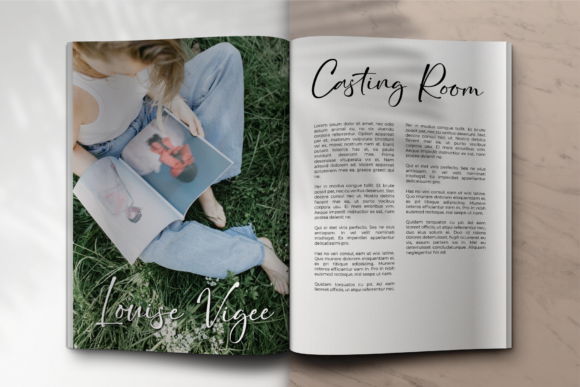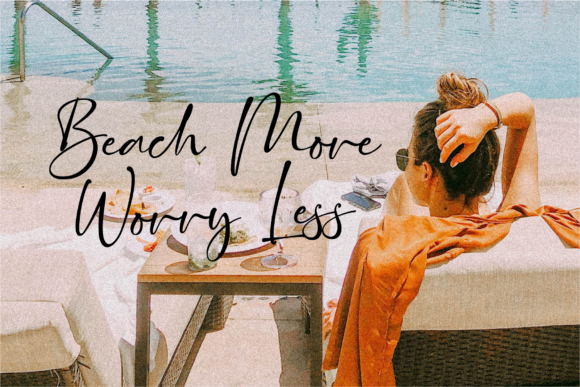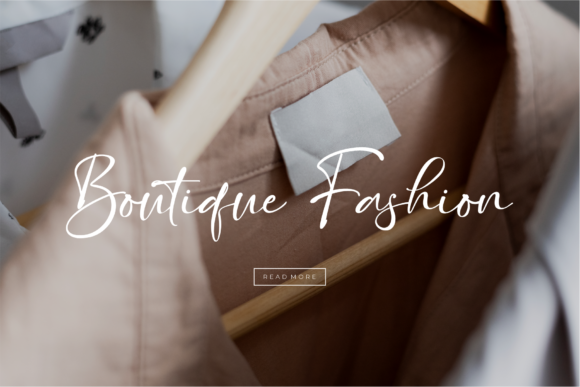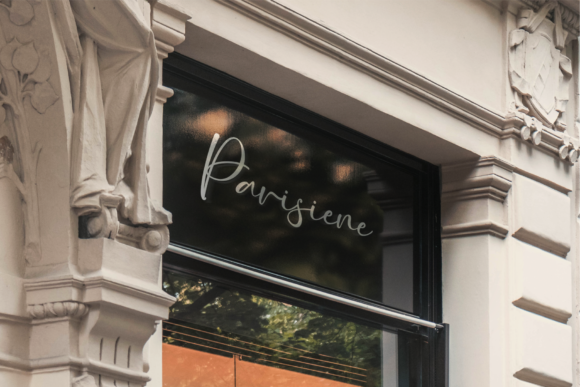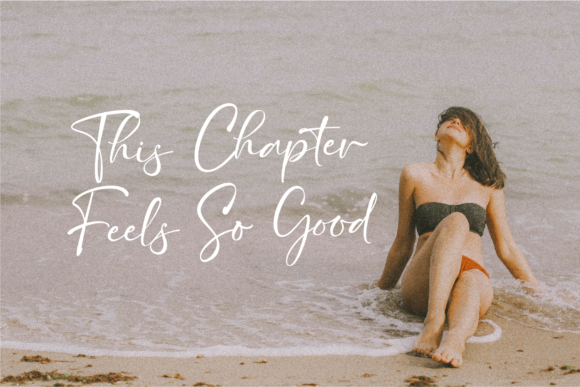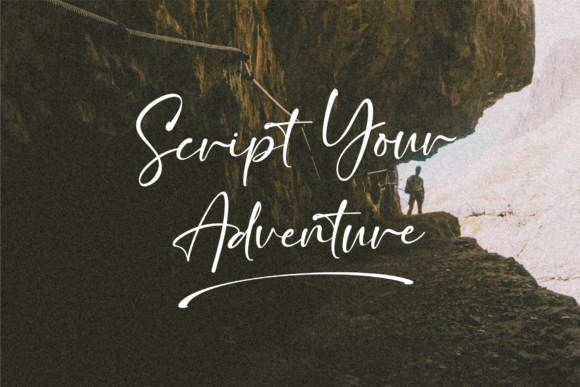
Unleash Your Creativity with Beauty Touch Font
Have you ever been working on a design project, pouring your heart and soul into every detail, only to feel like something’s missing? That’s when you know it’s time to add a touch of magic – and for many designers, that magic comes in the form of a beautiful script font.
Introducing the Beauty Touch Font, a charming and playful script font that will transport your designs to a world of elegance and sophistication. With its delightful characters that seem to dance along the baseline, this font is the perfect addition to any creative project. Whether you’re designing a wedding invitation, a greeting card, or a social media post, the Beauty Touch Font will make your ideas stand out in a crowd.
Key Features of Beauty Touch Font
- Character Count: This font includes a vast character set, covering Latin, Cyrillic, and Greek alphabets, as well as various symbols and punctuation marks.
- Size and Resolution: Beauty Touch Font is designed to be used at various sizes, from 8pt to 72pt, and can be scaled up or down without losing its clarity and legibility. The recommended resolution is 300 DPI for print and 72 DPI for digital use.
- Unique Characteristics: This font features elegant, flowing lines and subtle curves, making it ideal for use in creative, artistic, and design-focused projects. Its unique aesthetic will add a touch of sophistication and refinement to any text.
- Font Style: This font comes in three styles: Regular, Italic, and Bold, providing users with a range of options to suit their design needs.
Beauty Touch Font Review
As a designer, I was excited to try out the Beauty Touch Font, a sleek and elegant script font. Here are my honest thoughts on what works well and what doesn’t.
- Legibility**: The font is highly legible, making it perfect for body text and headings.
- Flowing Lines**: The connected script lines create a beautiful, flowing effect that adds to the font’s elegance.
- Variety of Styles**: The font comes in multiple weights and styles, making it versatile for various design projects.
- Compatibility Issues**: I encountered some compatibility issues with certain software and platforms, which was frustrating.
- Lack of Expressiveness**: The font can feel a bit generic and lacking in expressiveness, especially for more creative projects.
- Not Ideal for Display**: While the font is great for body text, it’s not ideal for display or headline use due to its relatively small size.
While the Beauty Touch Font has its limitations, it’s still a solid choice for designers looking for a clean and elegant script font. With a little tweaking and experimentation, it can add a touch of sophistication to your designs.
Tips for Getting the Most Out of Beauty Touch Font
For best results, use the Beauty Touch Font in combination with other elegant fonts and design elements. Experiment with different font sizes, colors, and styles to achieve the desired look.
The Beauty Touch Font is ideal for:
- Fashion and beauty product packaging
- High-end business presentations and reports
Alternatives to “Beauty Touch Font” for Designers
Great Vibes Font is a modern, elegant script font perfect for creating eye-catching headings and titles. It’s ideal for use in wedding invitations, event promotions, and any design where a touch of sophistication is needed.
Compared to Beauty Touch Font, Great Vibes Font has a more refined and polished look, making it suitable for a wider range of design applications. While Beauty Touch Font has a softer, more whimsical feel, Great Vibes Font is more formal and versatile.
Are there any specific font pairings that complement Beauty Touch Font?
Beauty Touch Font is a versatile font that can be paired with various fonts to create a unique look. Some popular pairing options include Open Sans, Lato, and Montserrat. You can also experiment with serif fonts like Georgia or Merriweather to add a touch of elegance to your designs. Remember to choose fonts that share similar x-heights and line widths to maintain visual